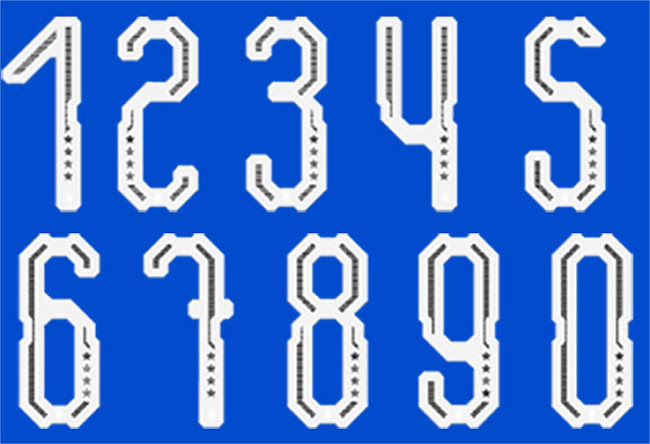
Unique Puma Italy 2018 Font Revealed
Puma designed an all-new font for the new Italy 2018 home jersey. The new Italy 2018 typeface boasts a unique design.
Puma Italy 2018 Typeface
Here are some examples of the new Italy font on the brand-new home kit.
A unique shape and design, the new Italy 2018 font stands out from regular typefaces and Italy's classy Euro 2016 font. Each number of the Italy 2018 font by Puma includes cuts.
Interestingly, the version of the Italy 2018 font available in the federation's store includes four stars and other black elements, while the typeface shown off by Buffon just comes with a subtle monochromatic Italy crest on the bottom.
It is likely that other Puma teams will use the same font shape as Italy for their new jerseys and in the 2018 World Cup, just as it was the case in the Euro 2016.